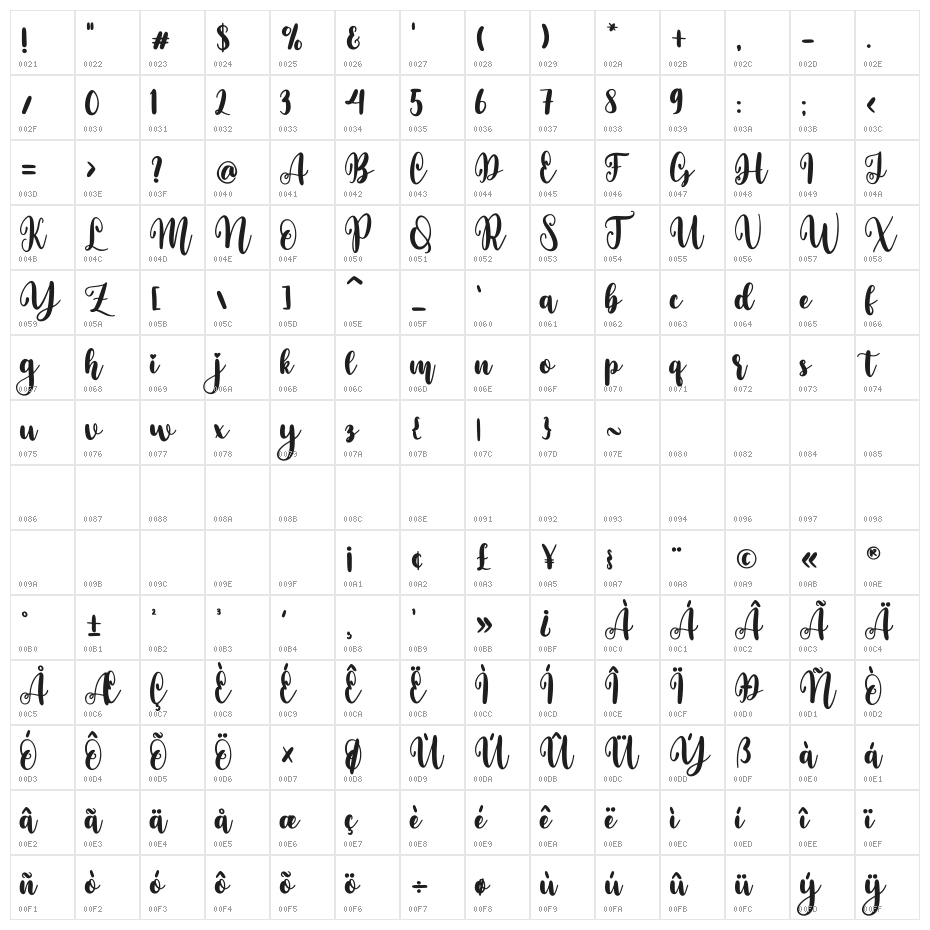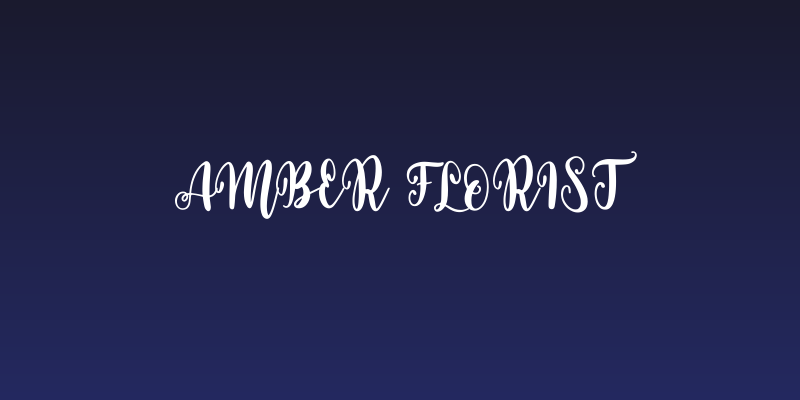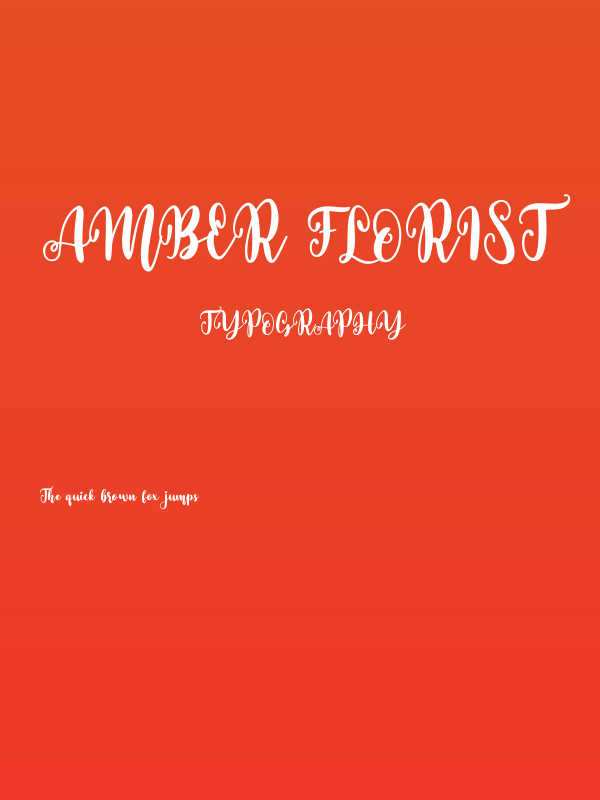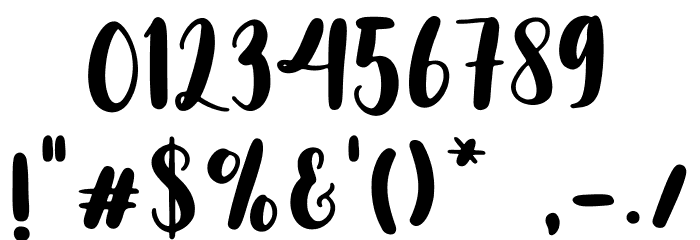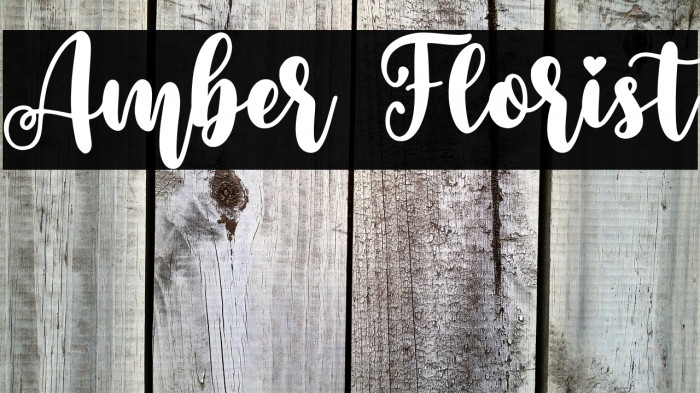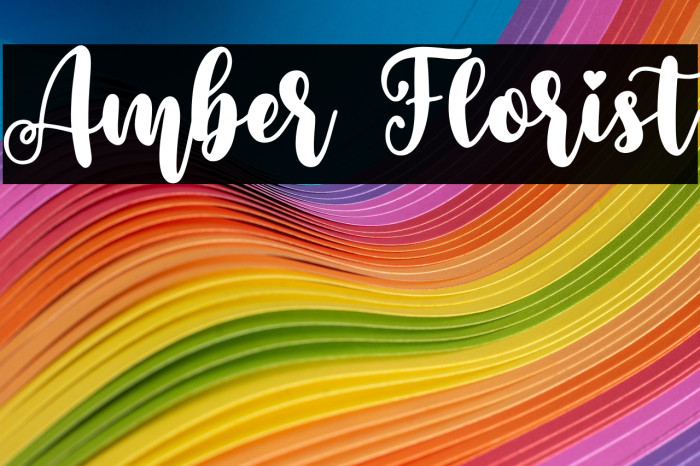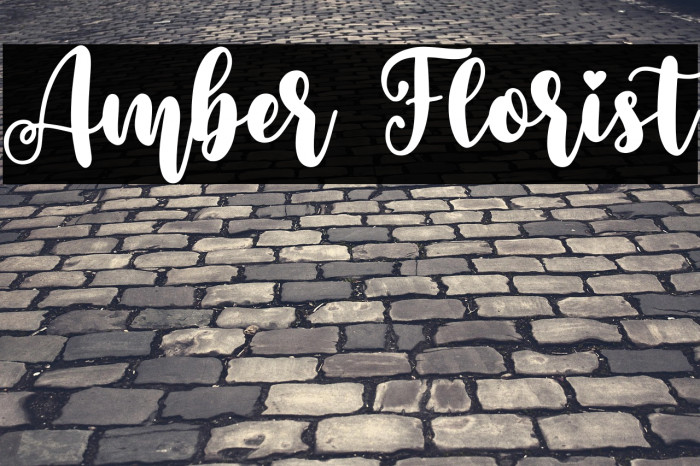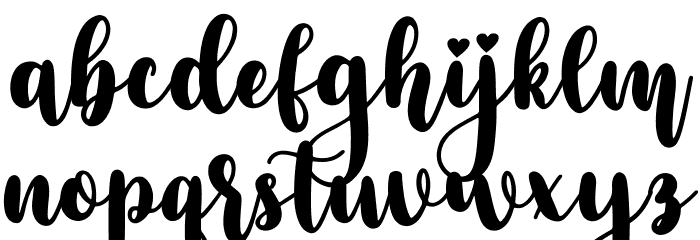
Amber Florist Font
Amber Florist Description
This font features a flowing, cursive style that exudes elegance and charm. The uppercase letters are bold and decorative, with intricate loops and swirls that add a touch of sophistication. The lowercase letters maintain a consistent style, with smooth, rounded edges and a playful, whimsical flair. The numbers are bold and clear, ensuring readability while maintaining the font's overall aesthetic. Special characters are thoughtfully designed to match the font's elegant style, making it versatile for various uses. The font's thick strokes and high contrast give it a striking appearance, perfect for making a statement.
| Proposed Projects | Ideal for wedding invitations, branding, greeting cards, and elegant signage. |